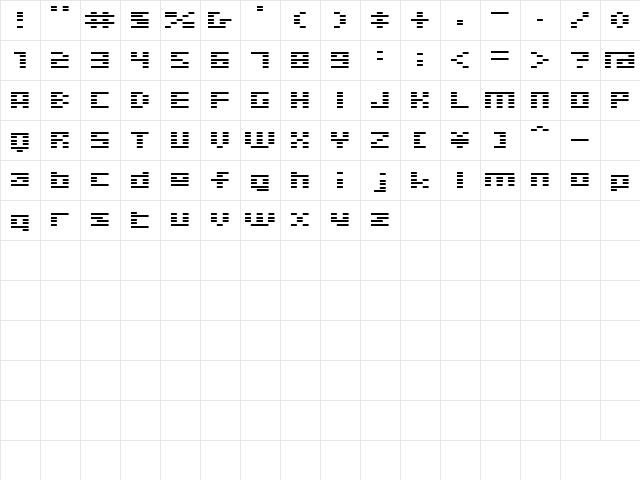
D3 Digitalism Regular
Design Context for D3 Digitalism Typeface
D3 Digitalism channels digital-age aesthetics through its sharp, structured letterforms — ideal for brands that want to signal innovation.
Pro Tip: Use D3 Digitalism in combination with a neutral sans for body text. Let it define the brand voice in headlines while keeping reading comfortable elsewhere.